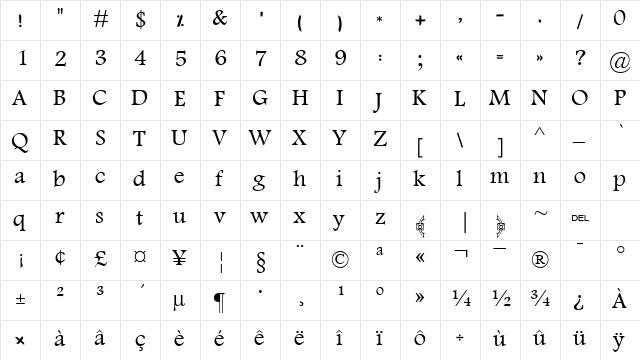
khalaad Sara Font Preview
Design Context for khalaad Sara Typeface
khalaad Sara takes a measured approach to typography — its balanced proportions and neutral character make it a reliable workhorse for both digital and print work.